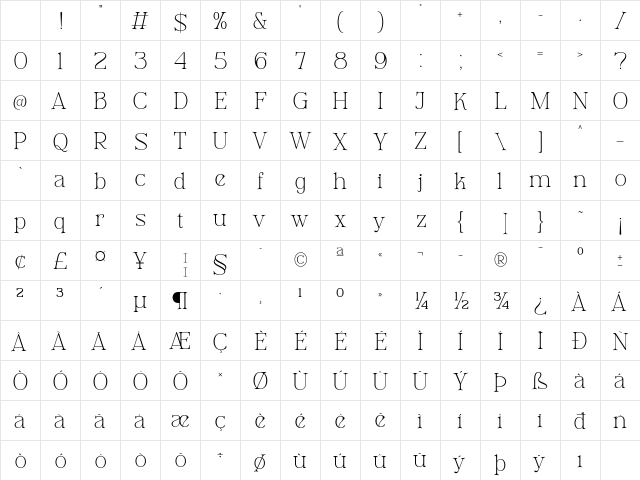
Gitter Neormis is a composed and adaptable typeface that performs quietly and consistently across a wide range of design contexts.
Pro Tip: Use Gitter Neormis in both headline and body roles to test its range before committing to a single application.